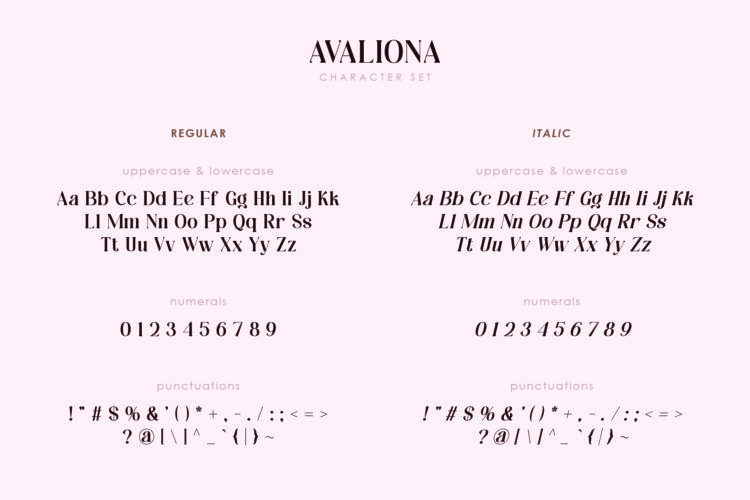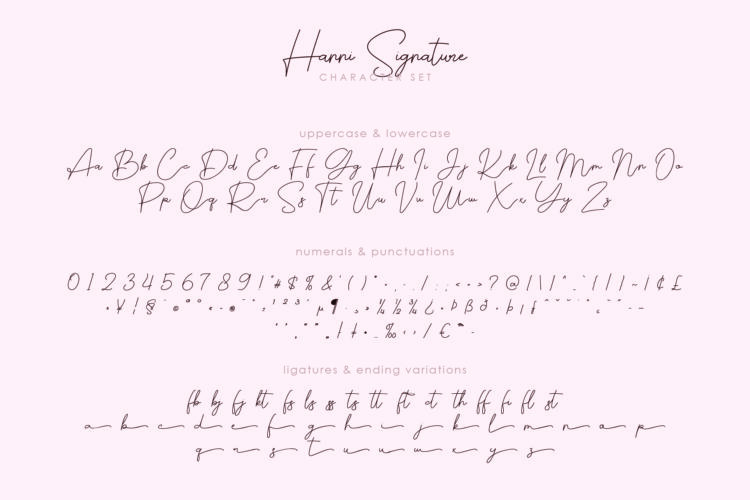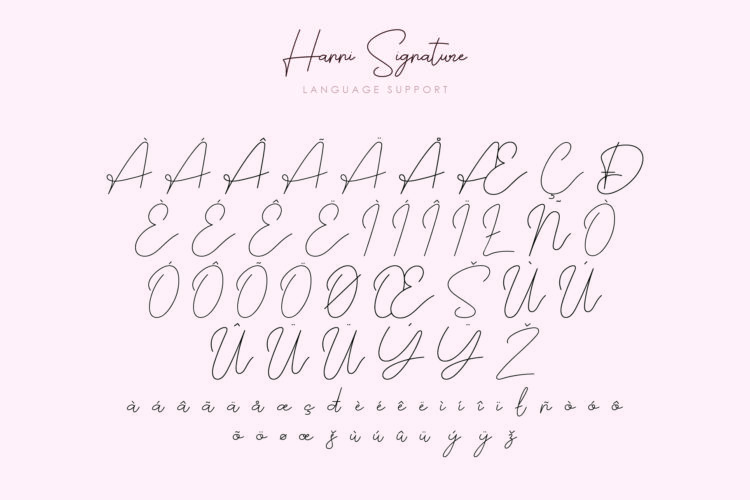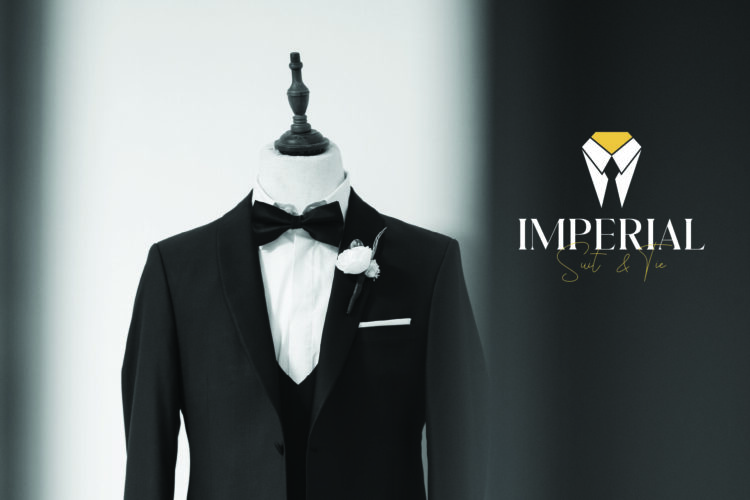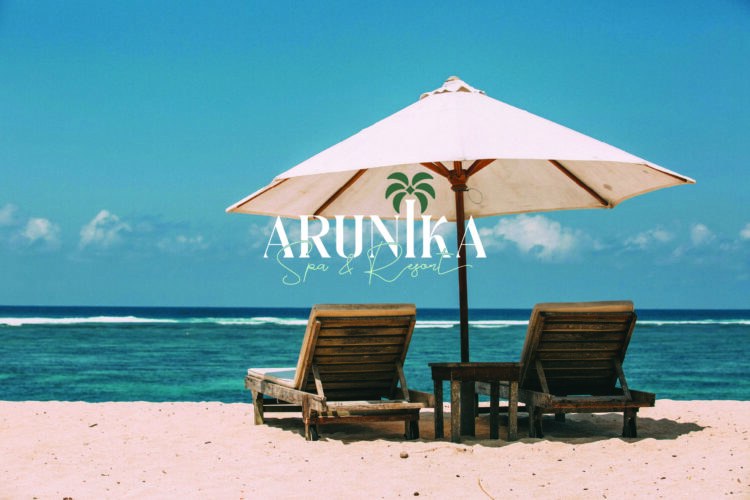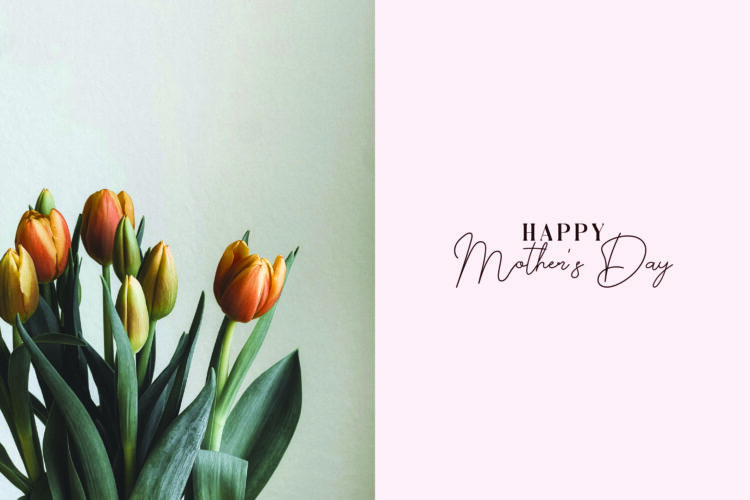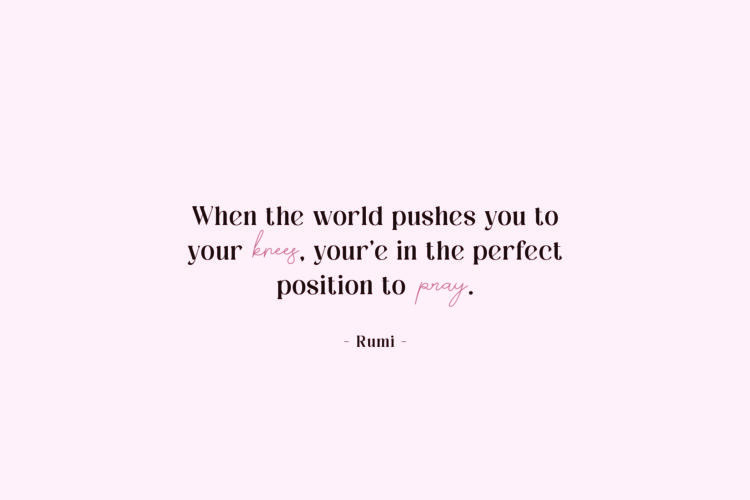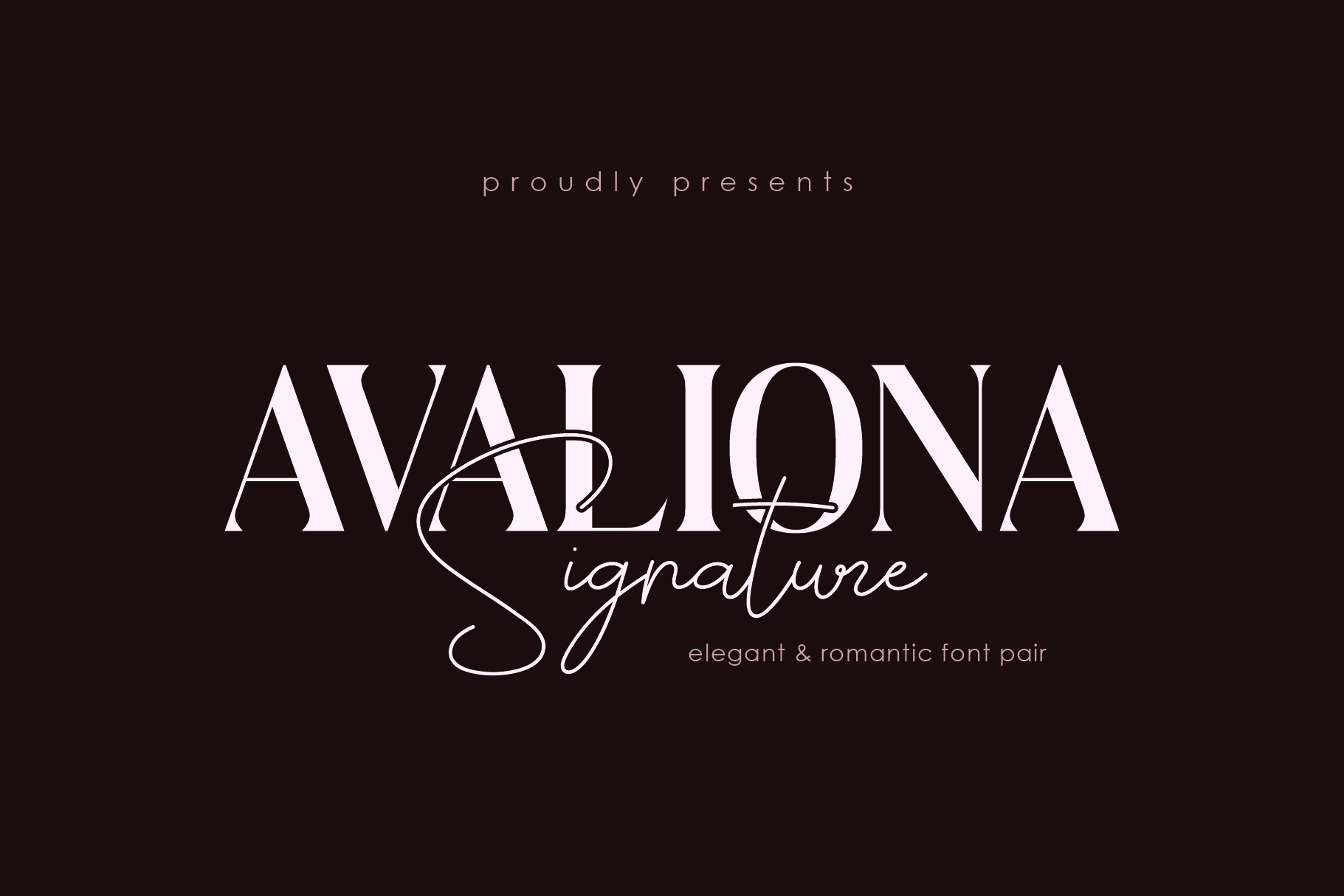
Avaliona - Regular
Avaliona - Italic
Hanni Signature
Avaliona Signature is an elegant and romantic font pair. It combines a modern serif font with a delicate script to create a soft and timeless look.
✨ Avaliona is a bold modern serif with smooth and clean lines. It includes a matching italic style, making it perfect for headlines, branding, editorial layouts, and luxury designs.
✨ Hanni Signature is a thin monoline script with a graceful handwritten feel. It adds warmth and charm to logos, signatures, wedding designs, invitations, and feminine branding.
Together, these two fonts work beautifully as a pair. They create strong contrast while staying balanced and elegant. This font duo fits fashion brands, beauty products, wedding stationery, social media, and premium visual projects.
Avaliona Signature | Font Pair